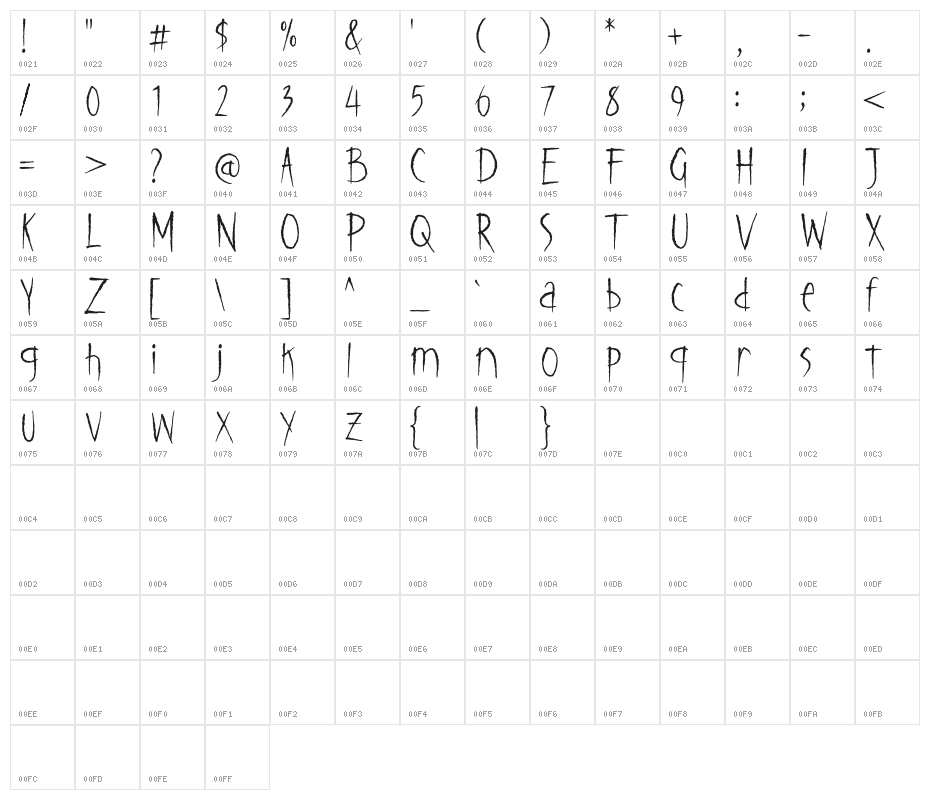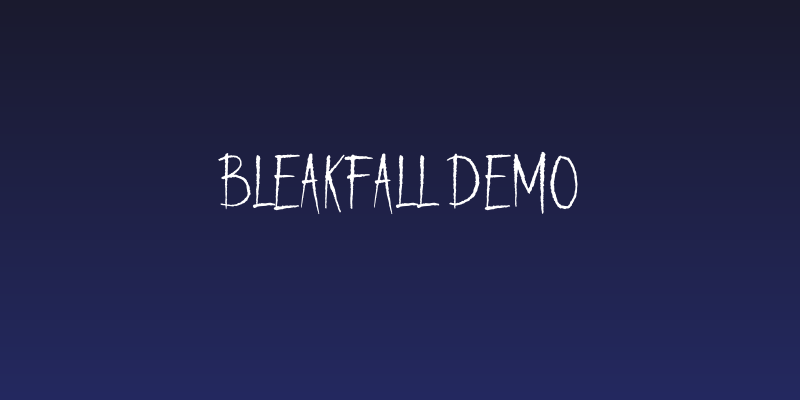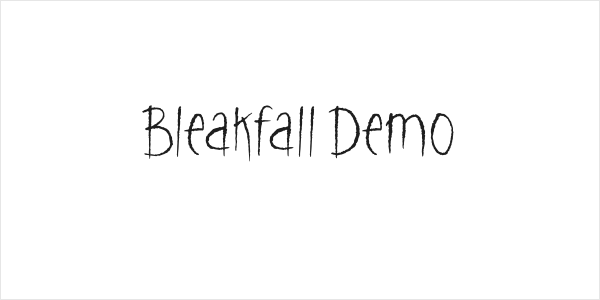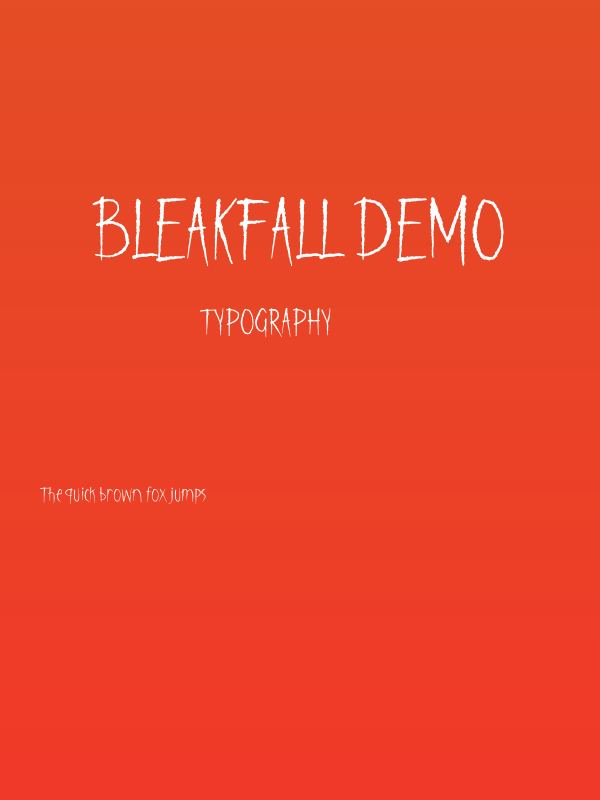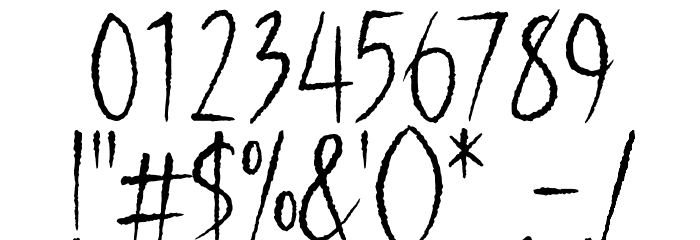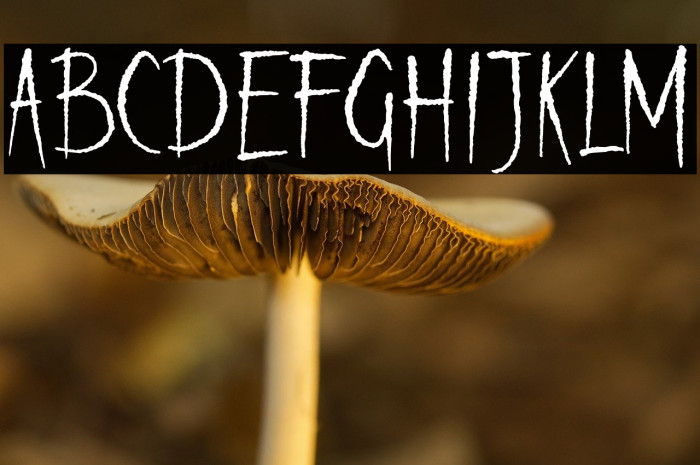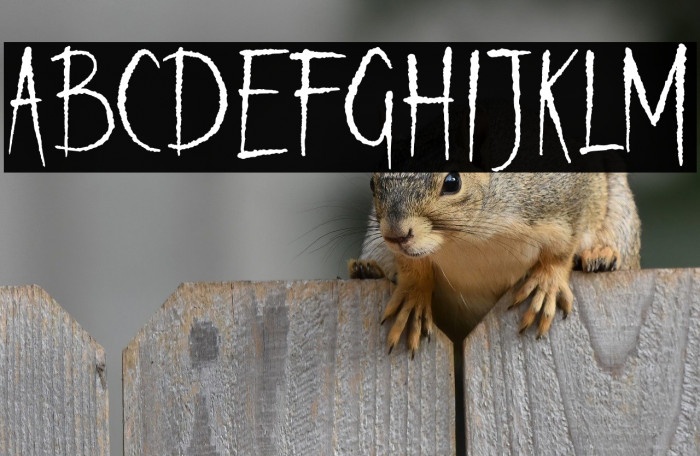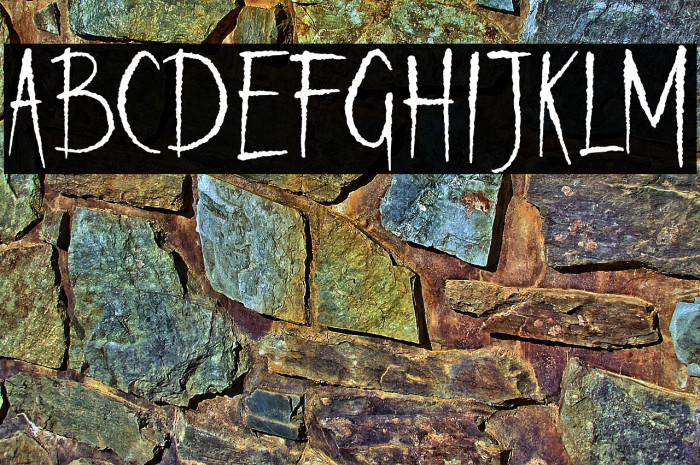
Bleakfall Demo Font
Bleakfall Demo Description
This font features a distinctive, hand-drawn style with an organic and slightly rough texture. The characters are tall and narrow, with uneven strokes that give it a rustic and artistic feel. The uppercase and lowercase letters maintain a consistent height, while the numerals and special characters complement the overall aesthetic. The font's irregularities and unique character shapes make it stand out, offering a sense of individuality and creativity. It captures a raw, expressive quality that is both modern and timeless, suitable for projects that require a touch of personality and flair.
| Overall Style | Rustic, Artistic |
| Use Case | Logos, Posters, Artistic projects |
| Proposed Projects | Ideal for artistic projects, branding, posters, and any design requiring a handcrafted touch. |